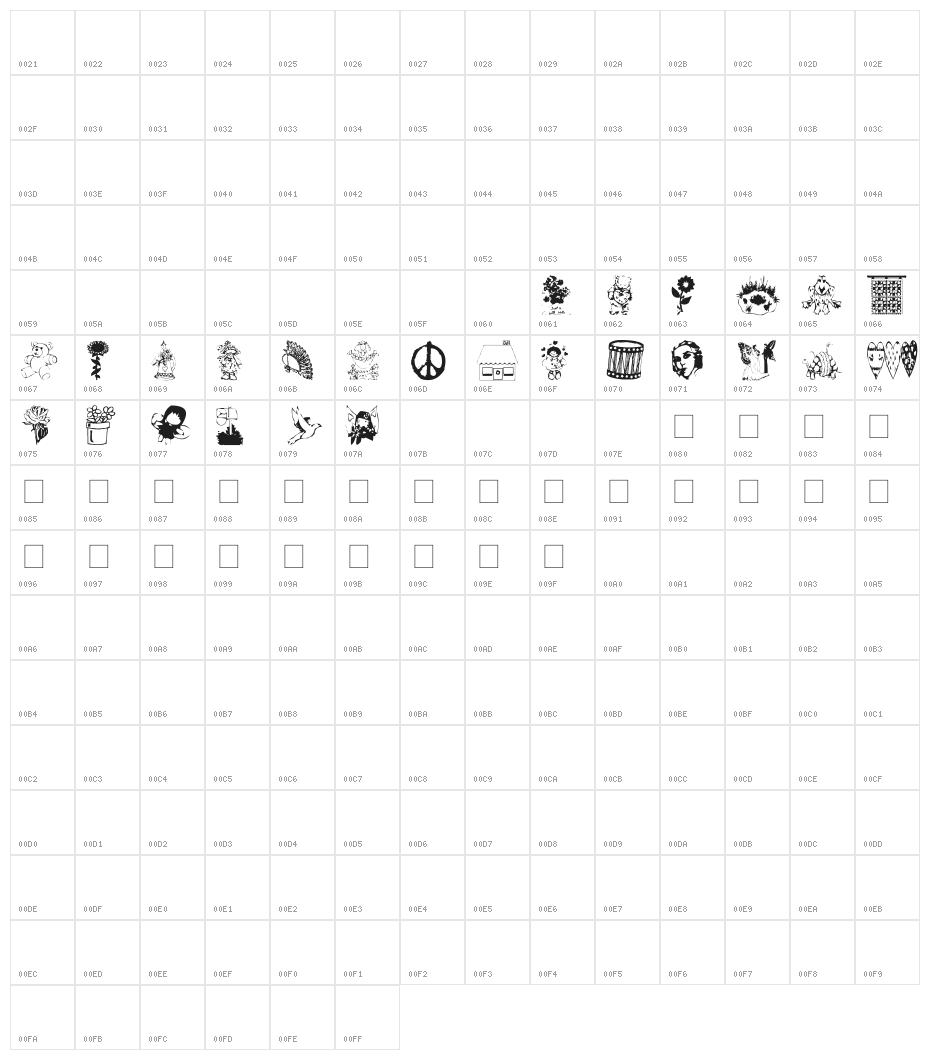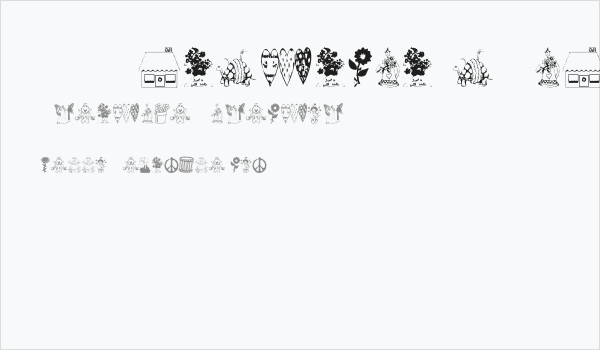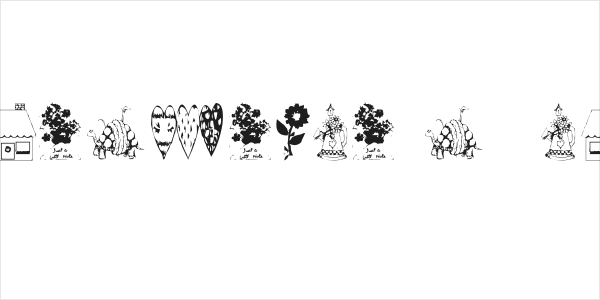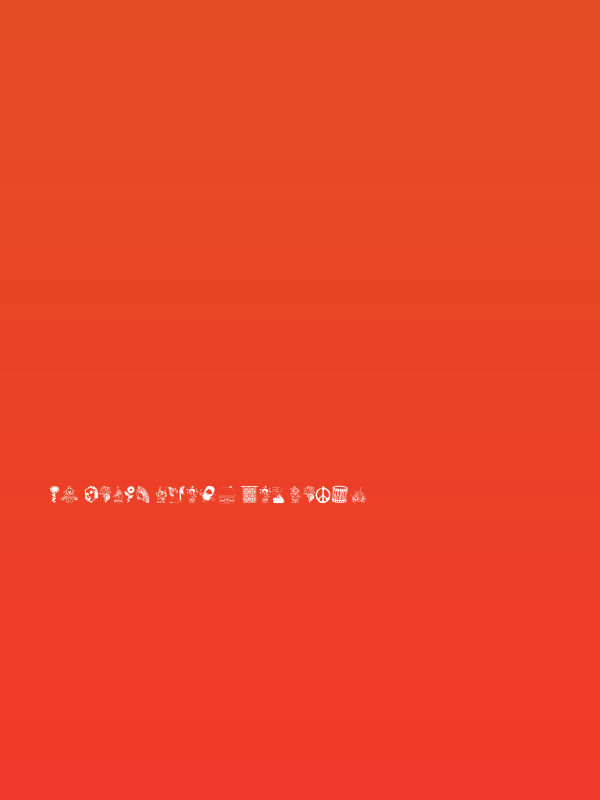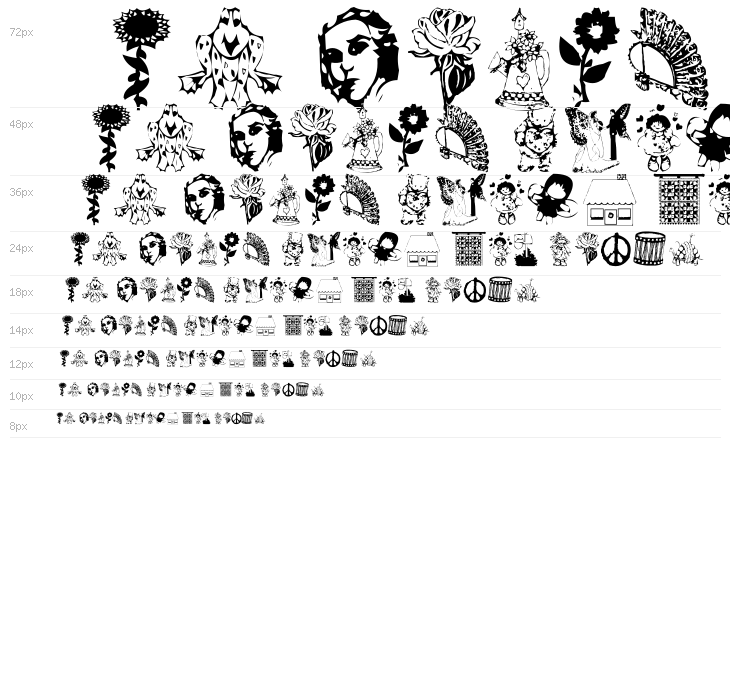
AEZAnastacia's Dings Font
AEZAnastacia's Dings Description
A collection of playful and whimsical dingbat illustrations including animals, flowers, peace symbols, hearts, and various decorative motifs. Each character is represented by a unique pictogram rather than traditional alphanumeric glyphs.
| Overall Style | Decorative, Whimsical, Playful |
| Use Case | Decorative elements, Illustrative accents, Non-textual communication |
| Proposed Projects | Greeting cards, scrapbooking, children's projects, decorative borders, invitations, craft designs. |